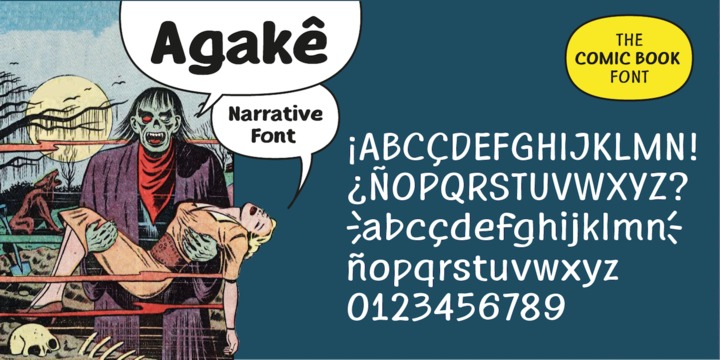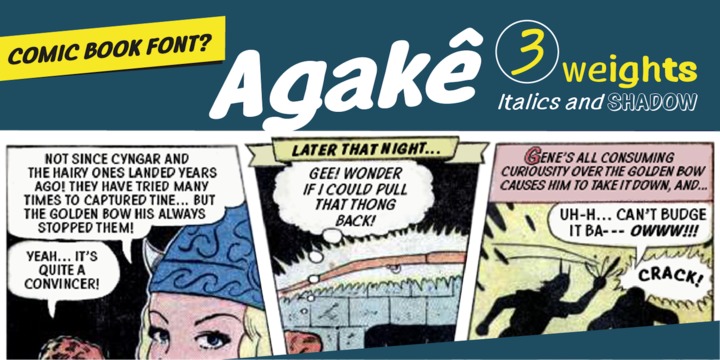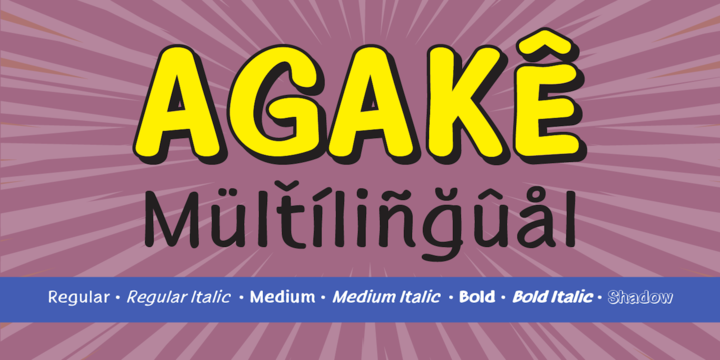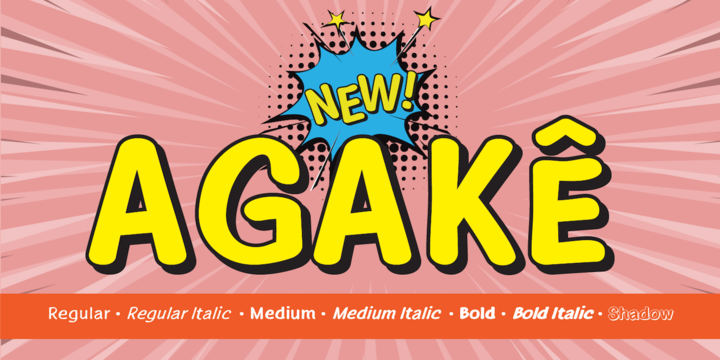
Agakê is a typography for comics with 03 weights, variations in italics and shadow. It has 432 glyphs with support for multiple languages and was designed to adapt to a variety of styles and narrative genres, whether adventure, fiction, graphic novel or even superhero.
Traditionally, the typeface in the comics are applied in capital letters, seeking the optimization of the space without losing the readability.
But Agakê was designed to work also in lowercase, allowing a greater number of combinations and an incredible reading experience.
Valuing the foundations of the graphic narrative, Agakê obtains total harmony next to the most diverse styles of illustration of the comic books.